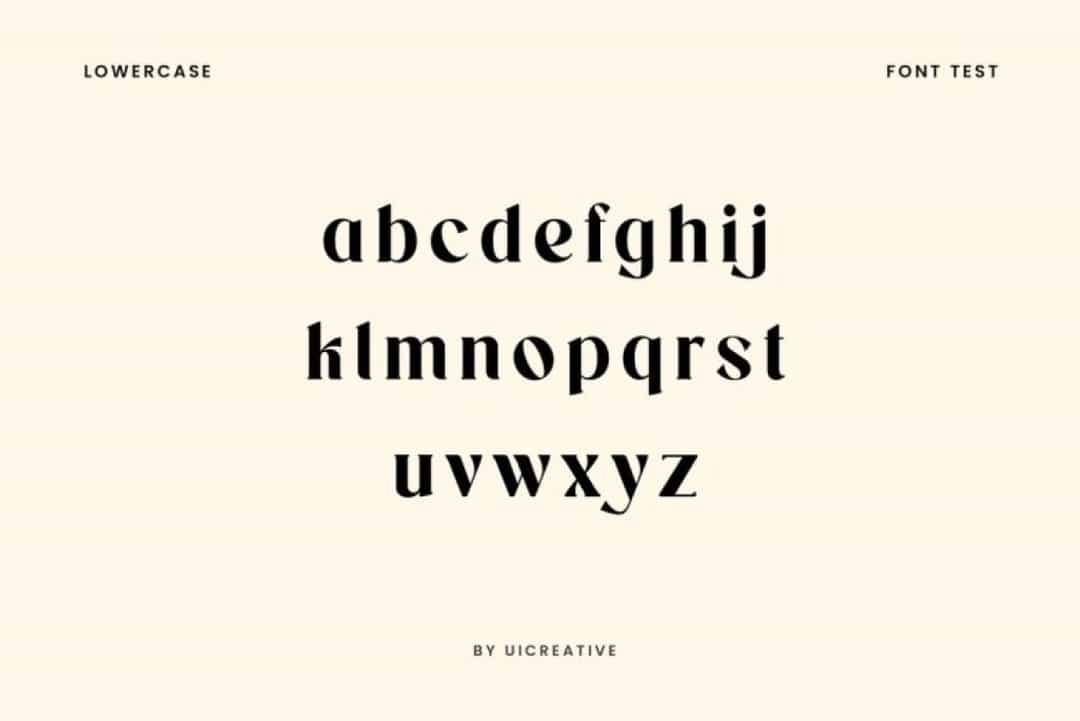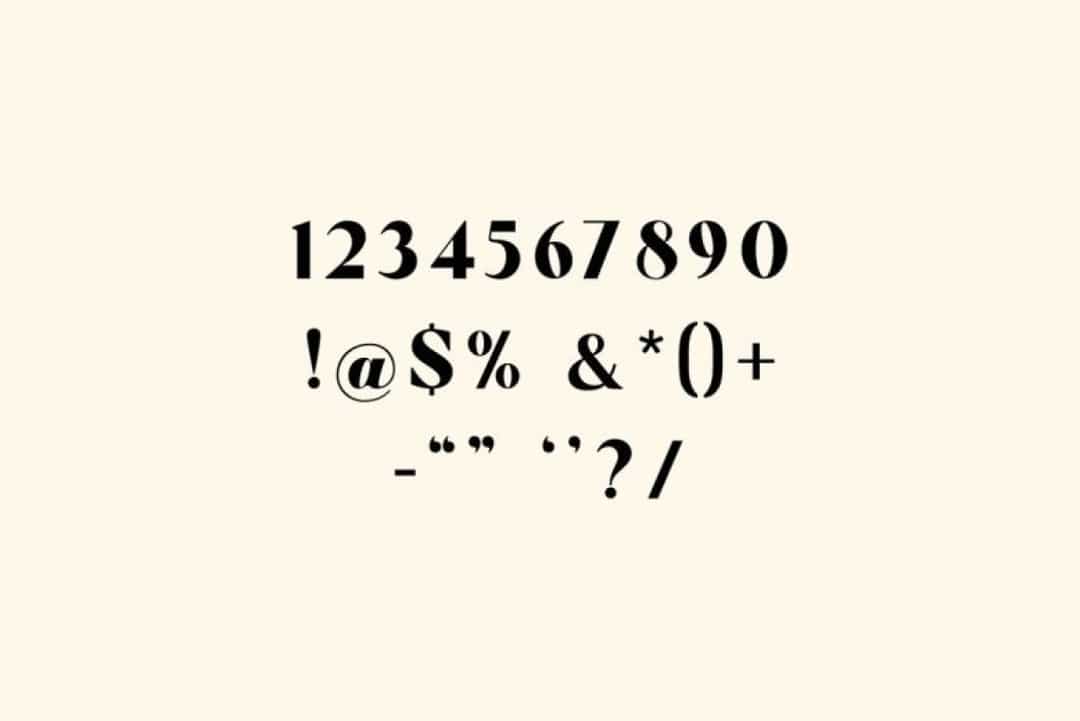
Holispay is an all-new multilingual serif typeface by UicreativeNet that is elegant, classy and chic – ideal for modern display fonts such as stationary designs. Perfectly suitable for stationary signature logo wedding typography quotes magazines book covers branding etc; additionally it can showcase feminine as well as masculine characteristics when used for editorial designs or branding purposes.